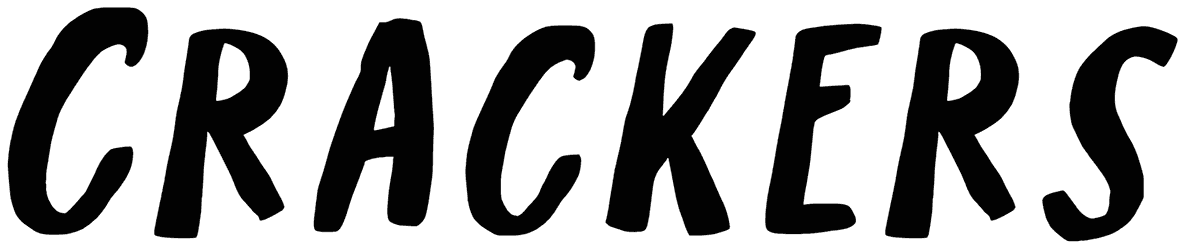
Crackers Font
Crackers is a comic font with a hand art style and attractive look. This fancy font just includes caps which means there are no numbers, punctuation, or lowercase, with a few exceptions for the last one! Put Crackers on your next project texts for example book covers, posters, packaging, or the like, and cause them more fun and amusing.